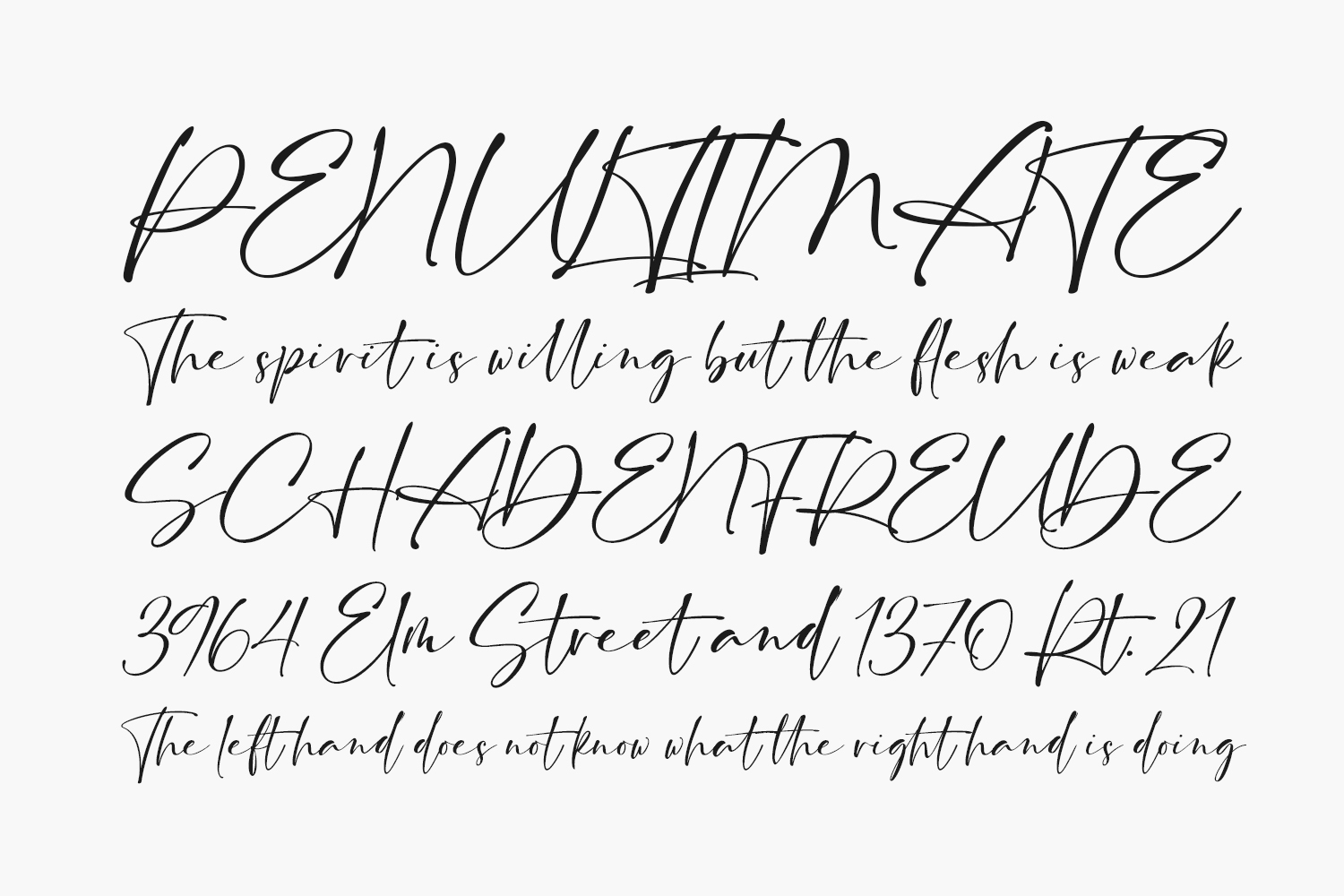
British Castilla Free Font is a beautiful duo font (Script & Slab Serif). Incredibly versatile, this font fits a wide pool of designs, elevating them to the highest levels. Add this font to your favorite creative ideas and notice how it makes them come alive. British Castilla Free Font was designed by Riyadh Rahman and is free for personal use only. Please purchase the full version for commercial use.